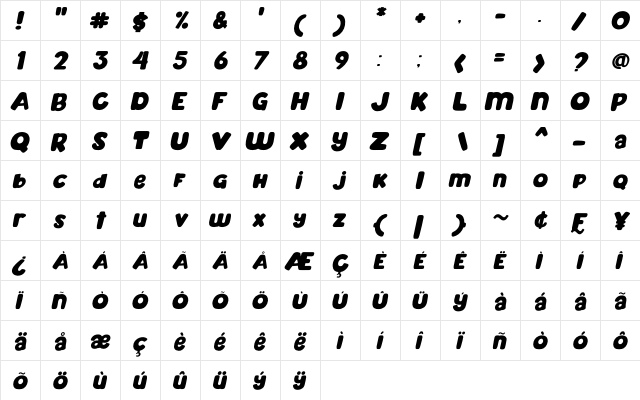
Mahoney Tilted Italic
Design Context for Mahoney Tilted Typeface
Mahoney Tilted offers clean, dependable letterforms without strong stylistic allegiance, making it a practical choice for designers who need flexibility. The slanted form adds forward momentum and visual energy.
Pro Tip: Try Mahoney Tilted for annotation and caption copy alongside an upright companion — the contrast in angle creates a dynamic but ordered typographic system.